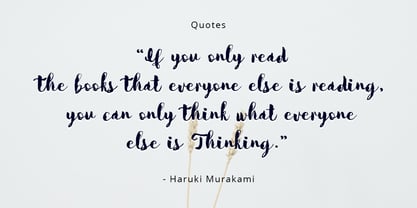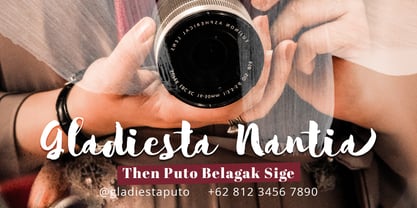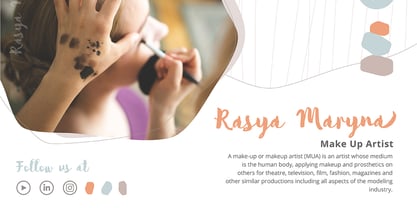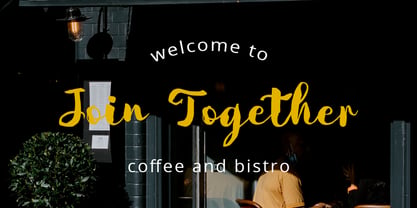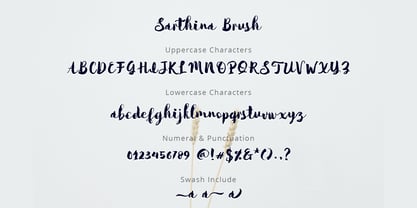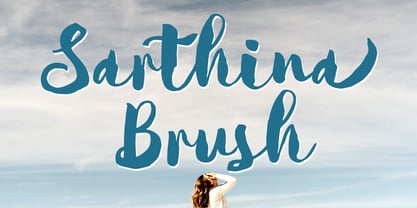
Sarthina Brush
by Siwox Studios
The Sarthina Brush Font Family was designed by Sarwo Edy and published by Siwox Studios. Sarthina Brush contains 1 styles. More about this family
Introducing Sarthina - an exquisite brush-lettered font that raises the bar in typography. Crafted with superior quality, it effortlessly adds an artistic touch to any project. Whether your backdrop is ink, watercolour, or standalone brushed letters, Sarthina enhances the aesthetic appeal to the hilt. It's not just a font; it's a strategic design asset primly suited for websites, branding initiatives, wedding invites, social media creatives, product design, stationery and advertising campaigns.
Designers: Sarwo Edy
Foundry: Siwox Studios